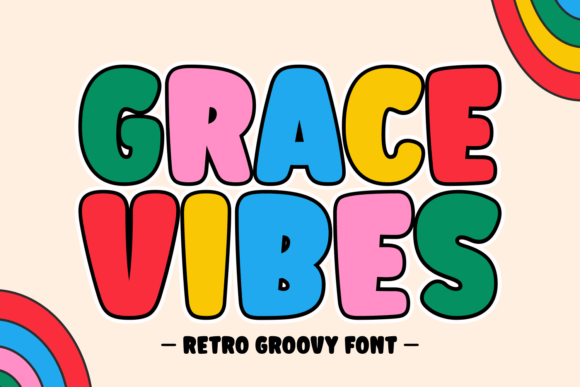
Introduction to Grace Vibes Font
Grace Vibes is a charming display font inspired by retro-style typography.
Thick and cheerful, this beautiful typeface is a fantastic asset to any design library Use it to create lovely posters, banners, apparel, headlines, advertisements, apparel, kids’ t-shirts, signage, and more.
Key Features of Grace Vibes Font